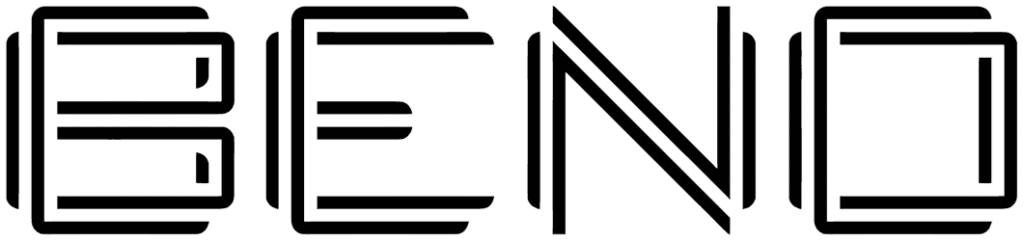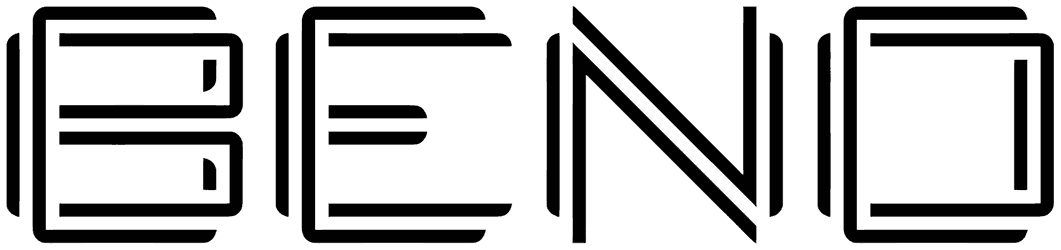
Bend Font
The success of your artwork, like posters, applications, web page templates, video game brochures, or magazines, directly depends on choosing a magical techno font like Bend. Due to its linear style, it can convey a vibe…
The success of your artwork, like posters, applications, web page templates, video game brochures, or magazines, directly depends on choosing a magical techno font like Bend.
Due to its linear style, it can convey a vibe of innovation, dynamism, modernity, or mirage to the audience’s minds and convince them to follow your work. We seriously offer you to pick up this futuristic font without paying attention to the lack of lowercase letters and numbers.